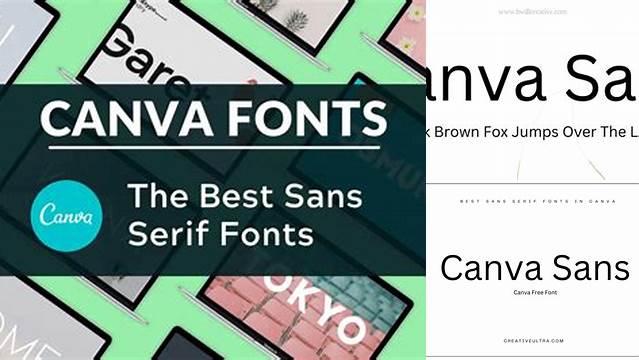
1. What is Canva Sans Font?
Canva Sans font is a modern and clean typeface known for its versatility and readability. It's often favored by designers for its balanced appearance and suitability for a wide range of projects, from branding to web design. The font embodies simplicity and elegance, making it a staple in many design arsenals. Canva Sans provides a neutral yet stylish aesthetic that makes it appropriate for headlines, body text, and everything in between. Its clarity ensures readability across various mediums, whether printed materials or digital interfaces. Many designers appreciate Canva Sans because of its adaptability, fitting seamlessly into diverse design themes and styles. This makes it a reliable choice when you need a font that can convey professionalism and contemporary flair. The popularity of Canva Sans also stems from its availability within the Canva platform, a user-friendly design tool accessible to both beginners and experienced professionals. Its presence there makes it easy for a wide audience to incorporate the font into their projects. If you are looking to create designs that are both modern and timeless, Canva Sans is an excellent option to consider. Its widespread use and appreciation within the design community highlight its value as a versatile and essential font.
2. Why Choose Canva Sans for Your Projects?
Choosing the right font is crucial for any design project, and Canva Sans offers several compelling reasons to be your go-to choice. First and foremost, its versatility makes it suitable for a vast array of applications. Whether you're designing a logo, creating marketing materials, or crafting a website, Canva Sans fits the bill. Its clean and contemporary aesthetic ensures your message is communicated clearly and effectively. The readability of Canva Sans is another significant advantage. Its well-defined letterforms and balanced spacing make it easy on the eyes, ensuring your audience can effortlessly consume your content. This is especially important for body text, where legibility is paramount. Moreover, Canva Sans exudes a sense of professionalism and modernity, which can significantly enhance the overall impression of your designs. It’s a font that conveys trustworthiness and competence, making it an excellent choice for businesses and brands looking to establish a strong identity. Finally, its availability on the Canva platform means it is easily accessible, streamlining your design process. If you aim for designs that are both visually appealing and highly functional, Canva Sans is a reliable and effective choice.
3. Canva Sans Font Family: A Detailed Look
The Canva Sans font family is a comprehensive collection designed to meet a variety of design needs. It typically includes a range of weights and styles, from light to bold, and often includes italic versions as well. This variety allows designers to create visual hierarchy and maintain consistency across different elements of a project. Each weight within the Canva Sans family serves a specific purpose. The lighter weights are ideal for body text and situations where a subtle, elegant touch is needed. Medium weights strike a balance between prominence and readability, making them suitable for subheadings and emphasized text. The bolder weights are excellent for headlines and calls to action, drawing the reader's attention effectively. The italic styles add another layer of versatility, perfect for adding emphasis or a touch of sophistication. This comprehensive nature of the Canva Sans family ensures designers have the tools they need to create cohesive and impactful designs. Understanding the nuances of each style within the family allows for more strategic use of typography, enhancing the overall message and visual appeal of the design. For projects that demand a professional and polished look, the Canva Sans family provides an invaluable resource.
6. Alternative Fonts Similar to Canva Sans
If you can't directly download Canva Sans, don't fret! There are plenty of fonts out there that capture a similar vibe and aesthetic. These alternatives can provide the same clean, modern look for your projects. Fonts like Open Sans, Lato, and Montserrat are excellent choices. They all feature clean lines, good readability, and a contemporary feel, making them versatile for various design applications. Open Sans is particularly known for its neutrality and legibility, making it suitable for body text and user interfaces. Lato offers a slightly warmer and friendlier appearance, while still maintaining a professional edge. Montserrat is a geometric sans-serif font that exudes a stylish and modern feel, ideal for headlines and branding materials. Exploring these alternatives allows you to achieve the desired look and feel of Canva Sans while ensuring you have the necessary licenses for your projects. Each of these fonts offers a range of weights and styles, giving you plenty of flexibility in your designs. By experimenting with different font pairings and styles, you can create visually appealing and effective designs that align with your brand and message. Choosing the right alternative to Canva Sans can be just as effective in delivering a polished and professional look.